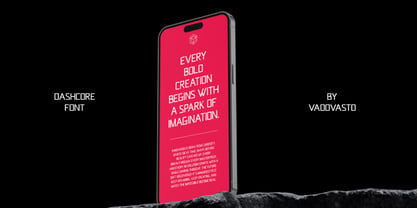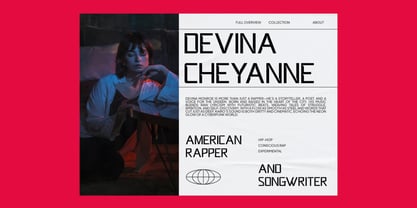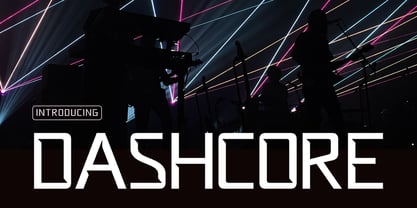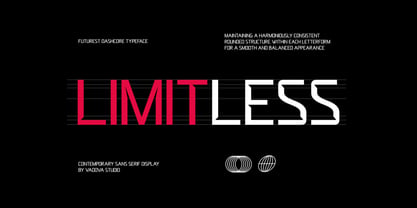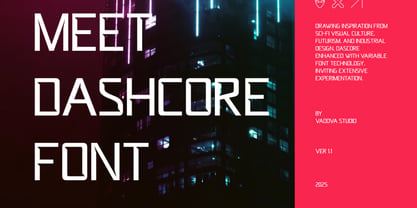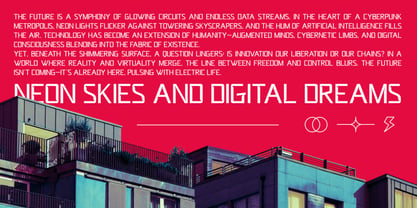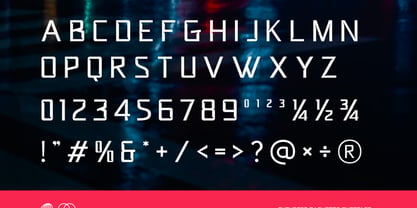
Dashcore
by Vadova Std
Dashcore is a sleek and futuristic sans serif font crafted for contemporary digital design. Featuring clean lines, tall proportions, and minimalistic elegance, it’s ideal for tech-driven branding, editorial layouts, music visuals, and stylish UI/UX interfaces. Its bold presence makes it perfect for headlines, posters, and promotional content where modern clarity and digital energy are essential.